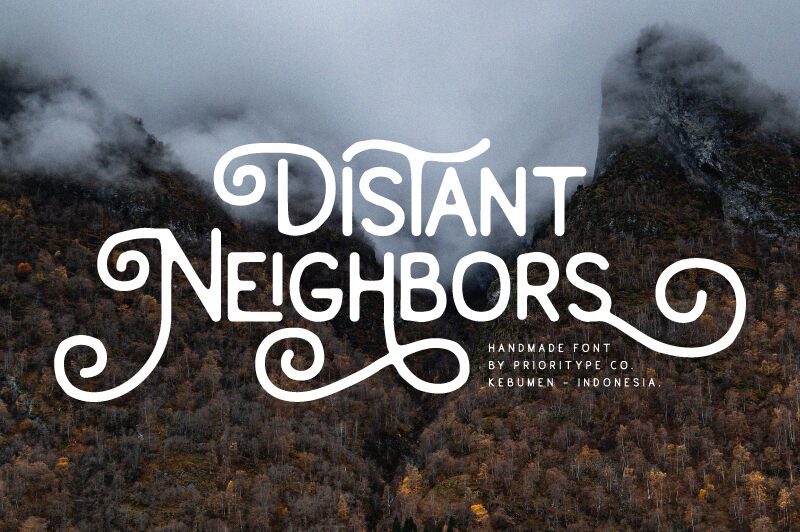
With its vintage charm and semi-light weight, this display font by Prioritype Co adds a touch of nostalgia to any project. The monoline design and rough shapes give it a unique character, while the numerous alternative choices and ligatures offer endless creative possibilities.
Whether you're working on a retro-inspired poster, a timeless logo, stylish merchandise, eye-catching book covers, or establishing a memorable brand identity, "Distant Neighbors" is the perfect choice. Its versatility allows it to seamlessly blend with both retro and modern themes, making it an ideal companion for designers seeking to evoke a sense of nostalgia or create visually captivating designs.
Distant Neighbors